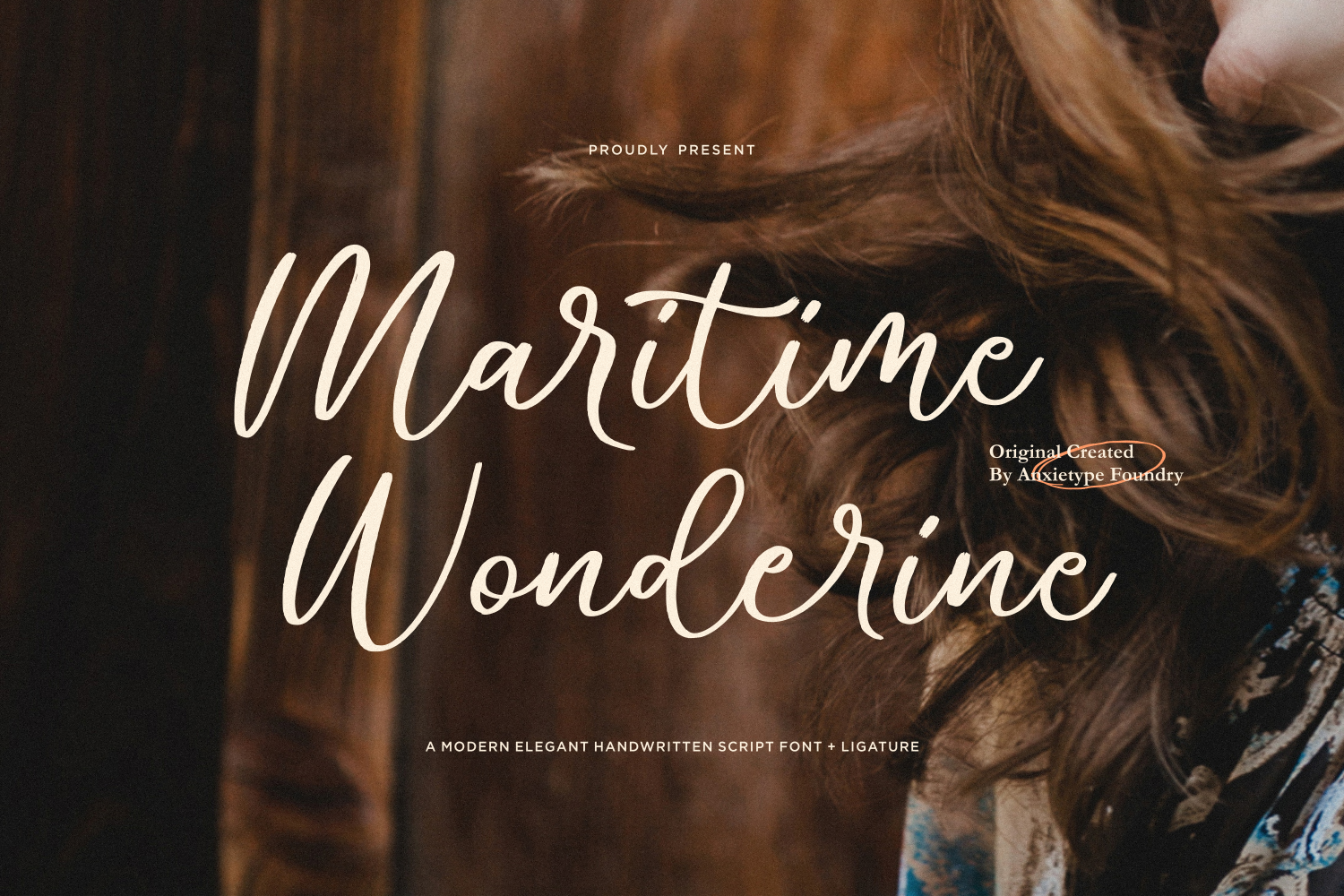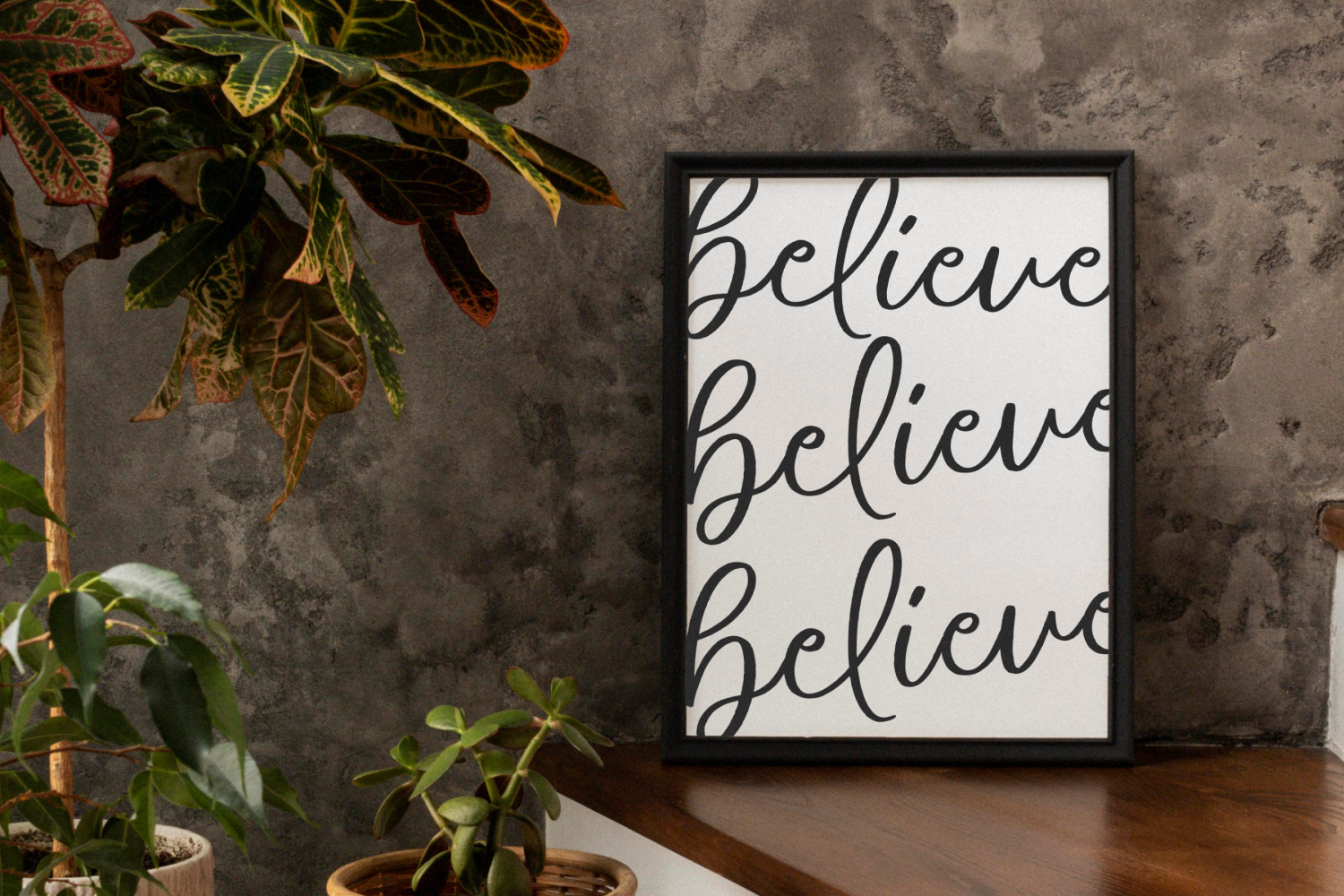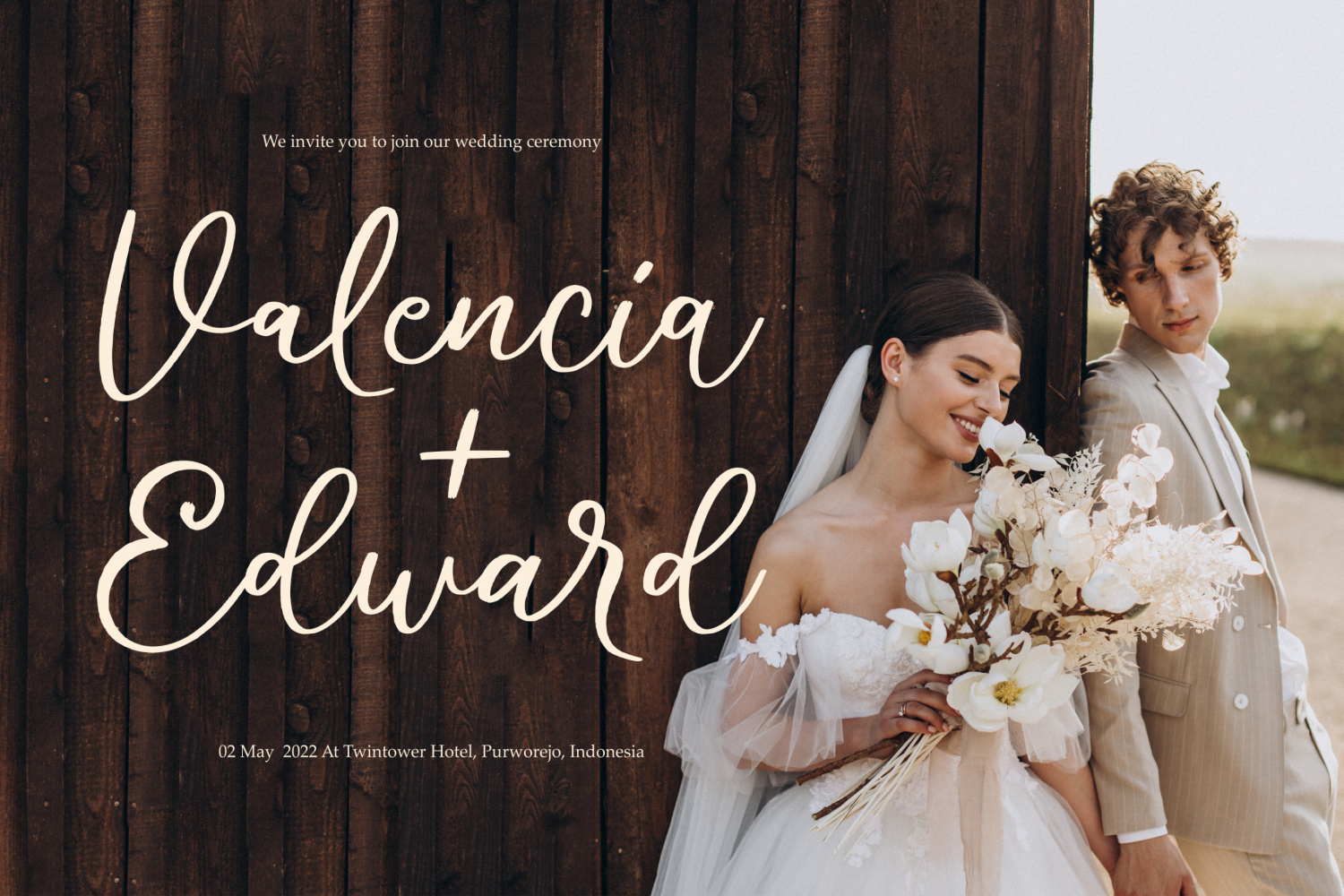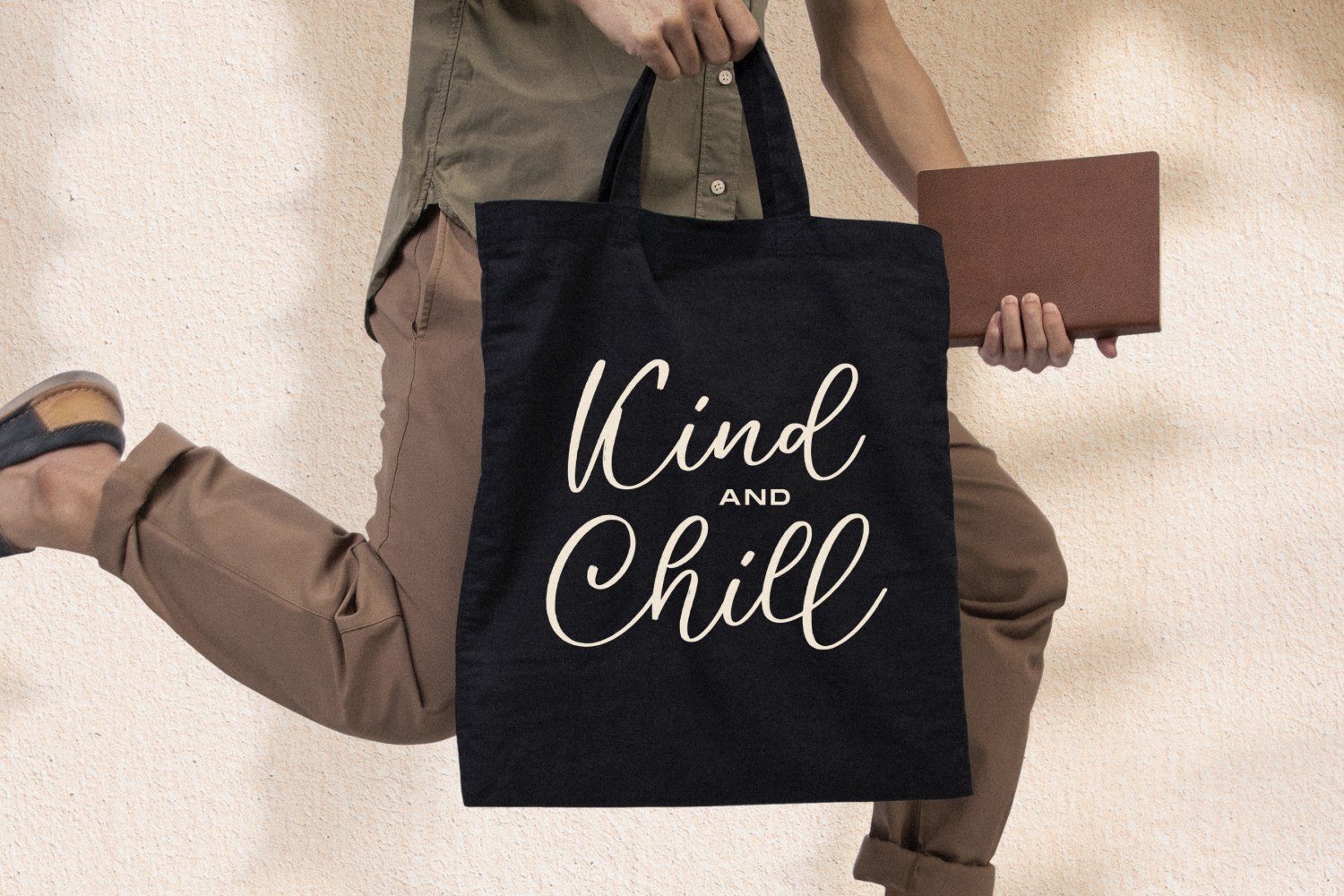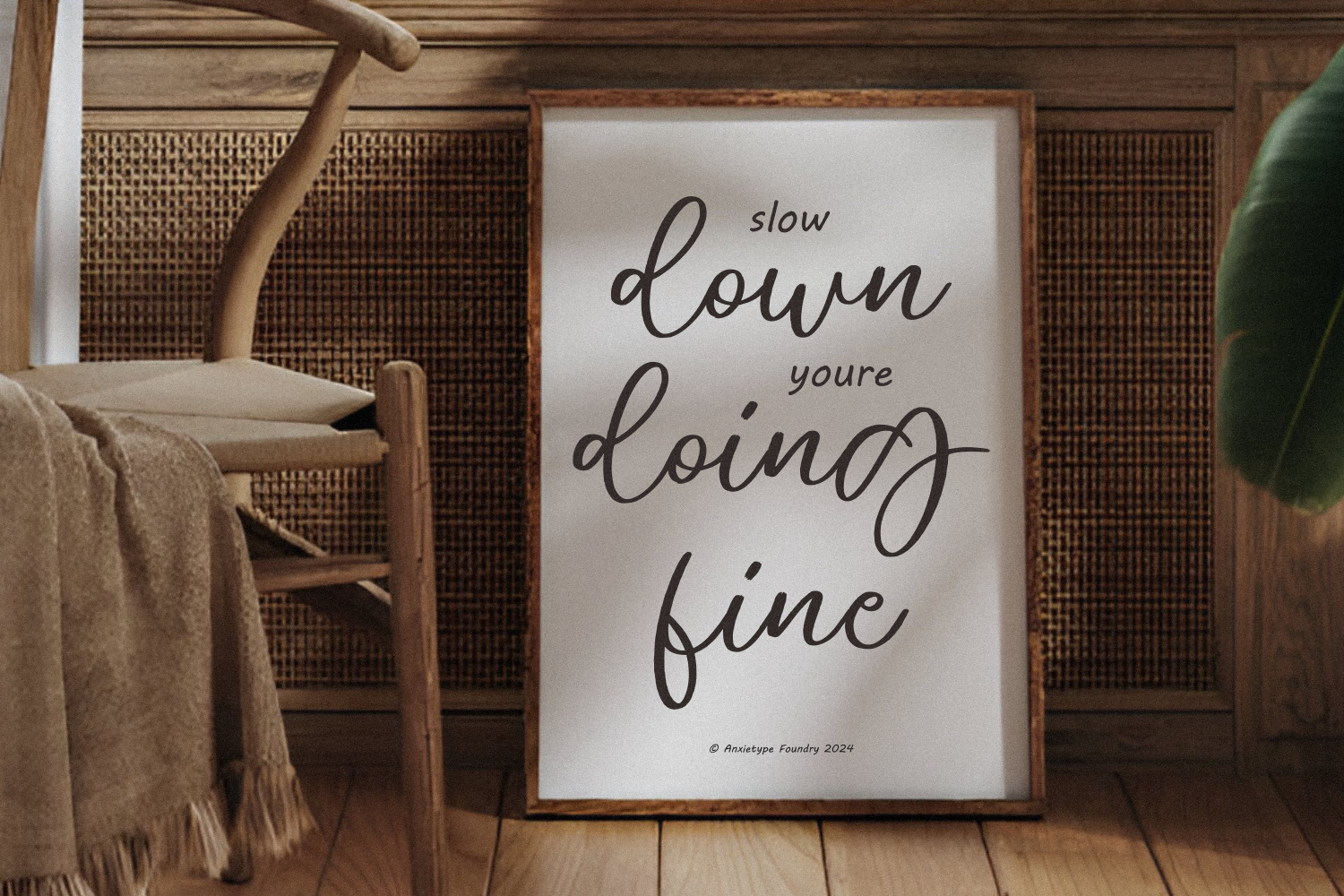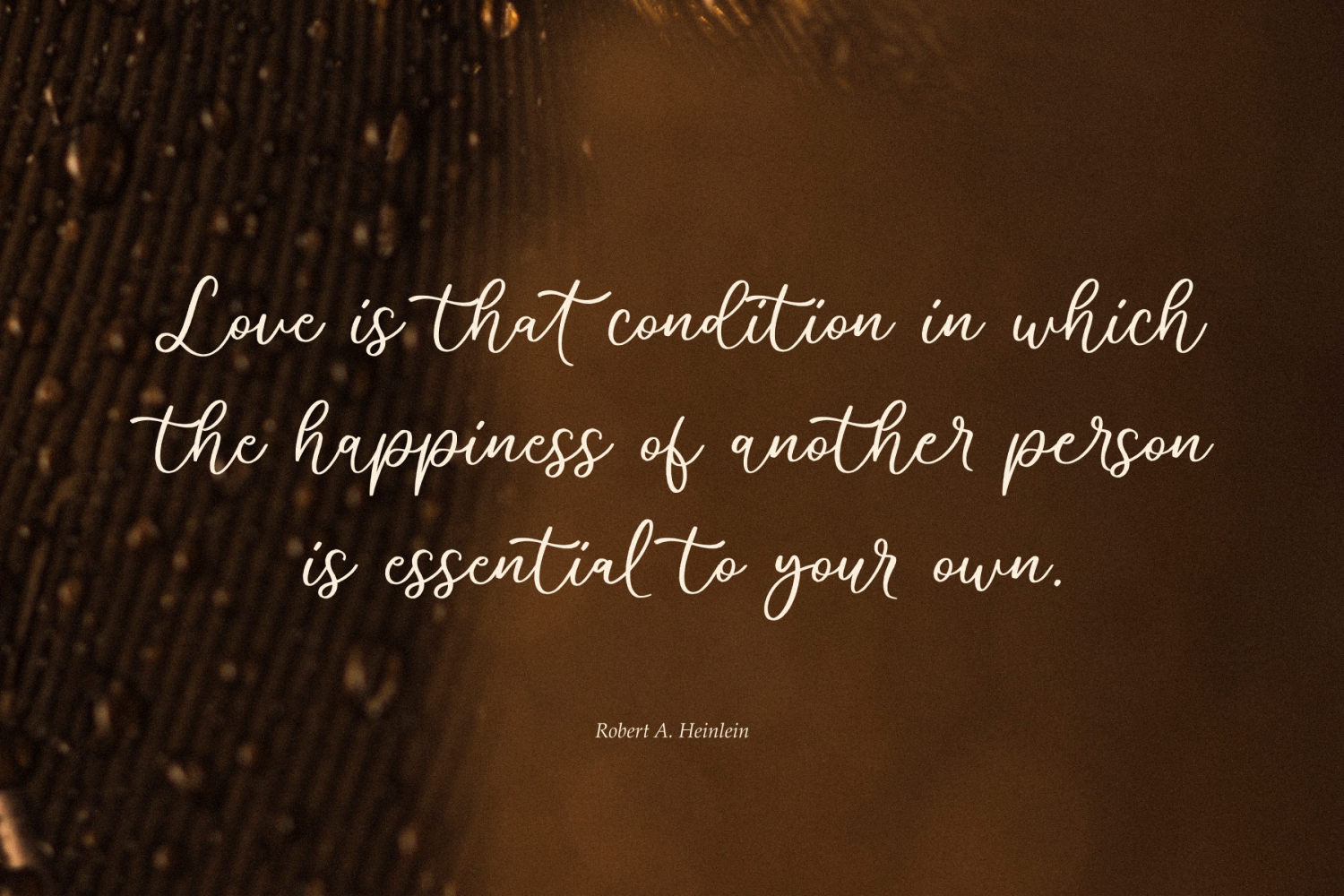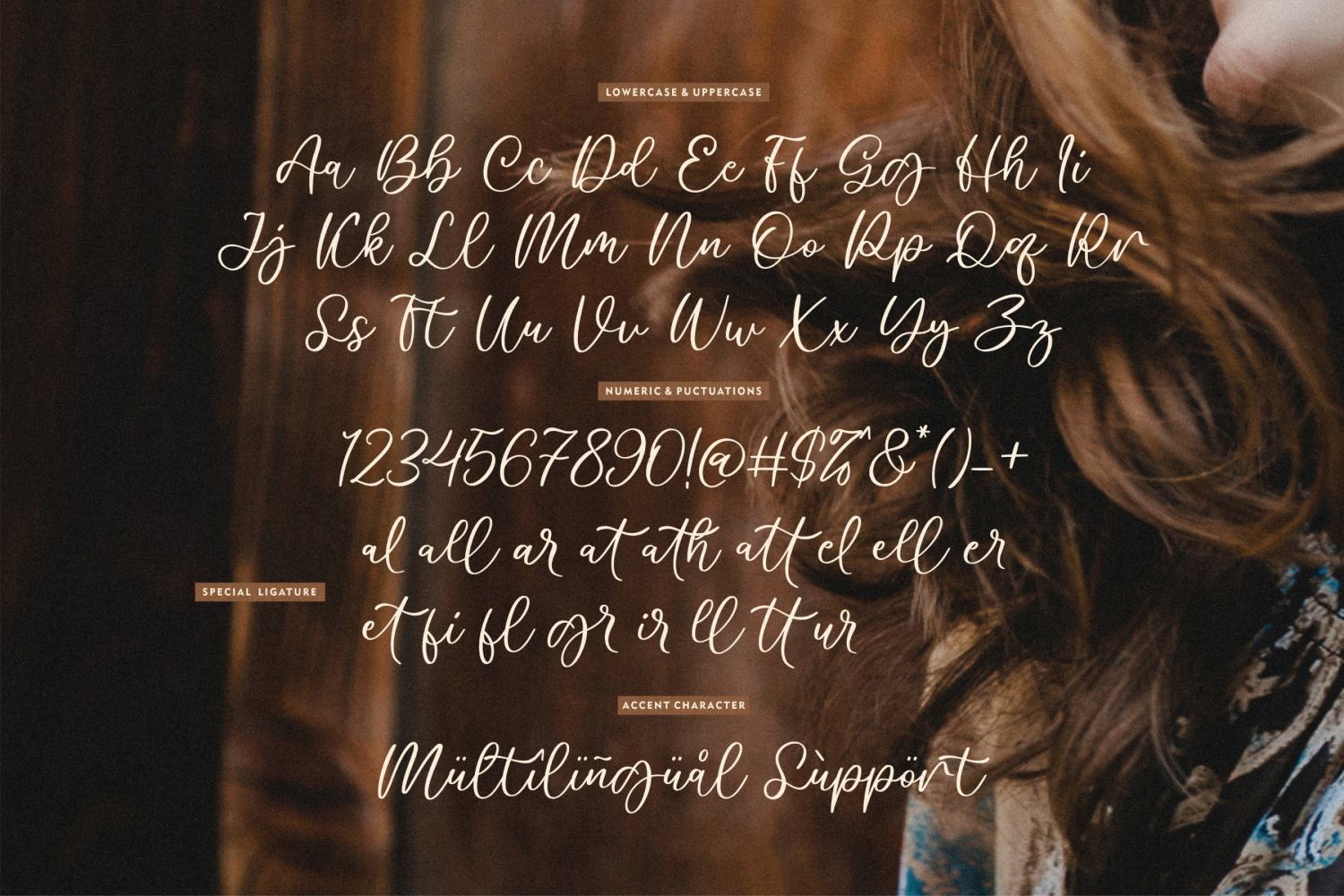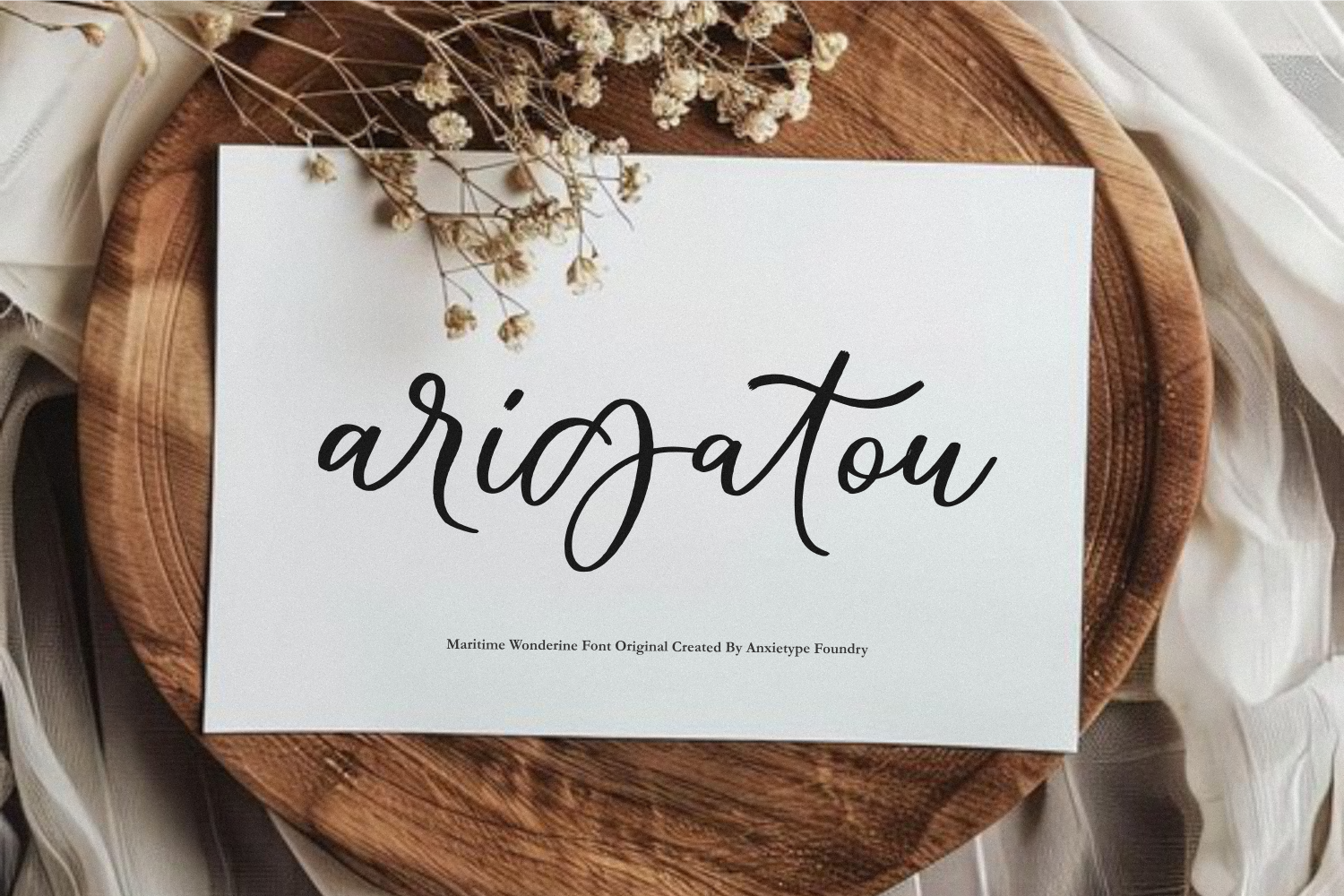
MarketplaceFontsMaritime Wonderine - Modern Script Font
Maritime Wonderine Font Crafted with enamoring elegance by the gifted artisan collective that is Anxietype Foundry , this exquisite script font is truly a marvel to behold. With an unwavering attention to detail, each ligature within the Maritime Wonderine invites you into a dance of sophistication, effortlessly elevating any project that graces, be it craftwork, wedding adornments, timeless branding, or distinctive packaging. This font doesn't just let you write words on a background, it weaves a tale of elegance and class, imprinting an unforgettable aura of charm and awe. Here is a font that doesn't just tell a story but guides the reader through an aesthetic voyage that resonates with beauty and delight, and that font is none other than Maritime Wonderine.